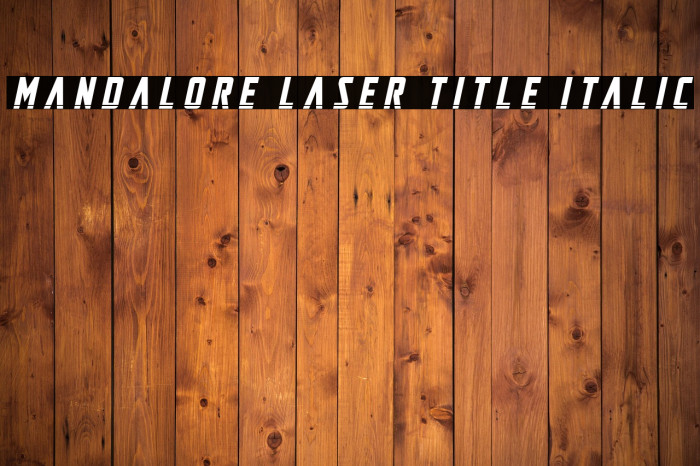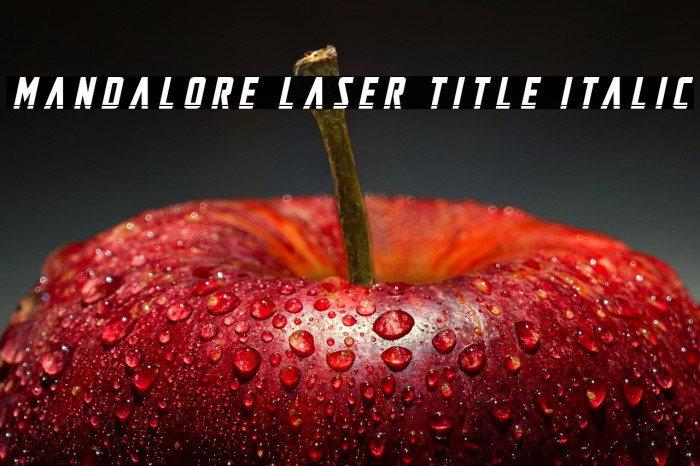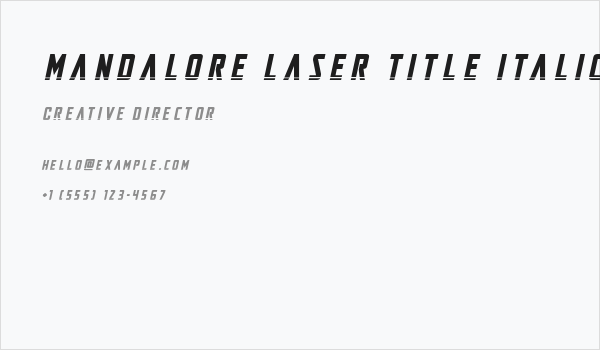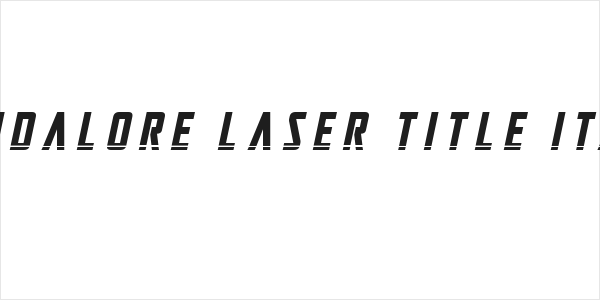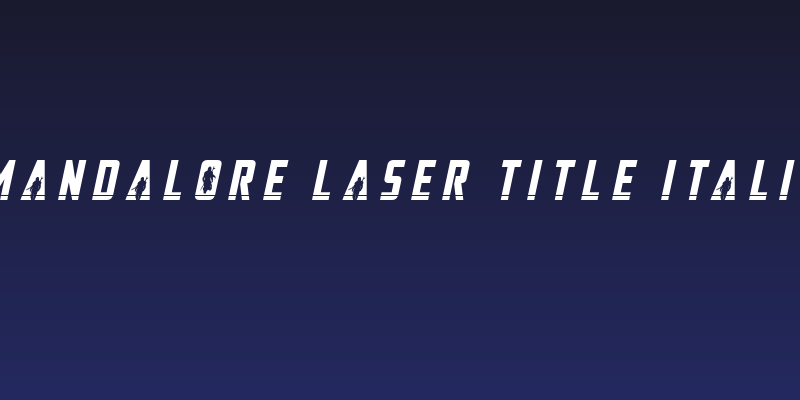
Mandalore Laser Title Italic Font
Mandalore Laser Title Italic Description
This font features a futuristic and dynamic design, characterized by sharp angles and a sleek, italicized form. The letters are bold and have a distinct slanted appearance, giving them a sense of motion and energy. The use of negative space and cut-out elements within the characters adds to its modern and edgy aesthetic. The font is highly stylized, with a unique flair that makes it stand out, suitable for projects that require a strong visual impact.
| Proposed Projects | Ideal for sci-fi themed posters, video game titles, tech branding, and futuristic event flyers. |